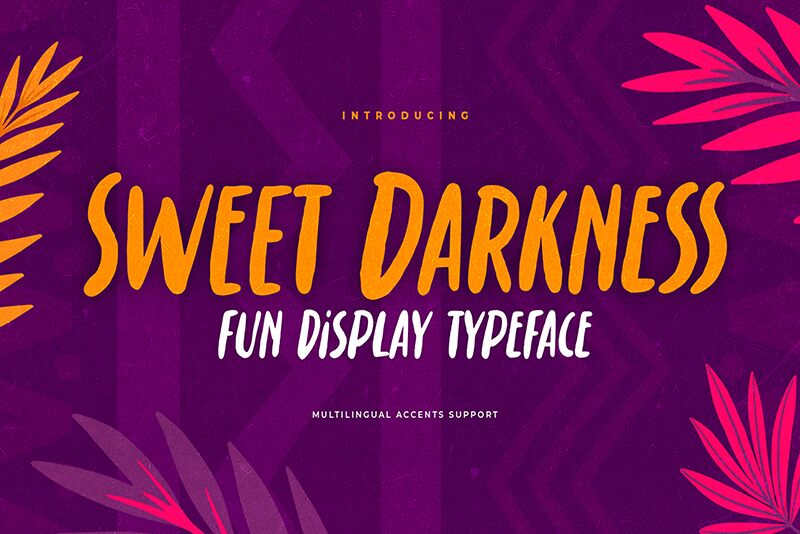
Sweet Darkness
Sweet Darkness font by Gassstype is a mesmerizing brush typeface that commands attention with its bold and condensed design. Its dynamic strokes create an intense and artistic flair, making it perfect for creative projects where personality is paramount. The font’s condensed width ensures that even elongated text remains easy to read, while its boldness gives it a vibrant presence, making it ideal for headlines, posters, and branding materials that need to stand out.